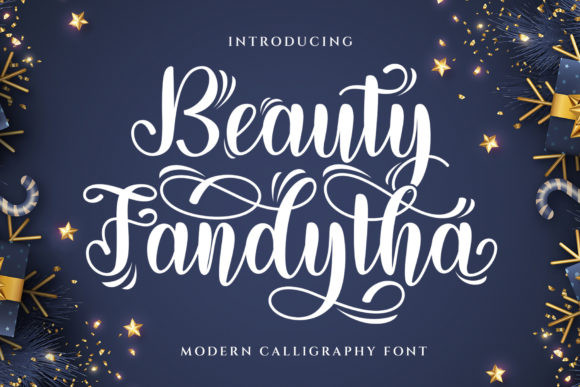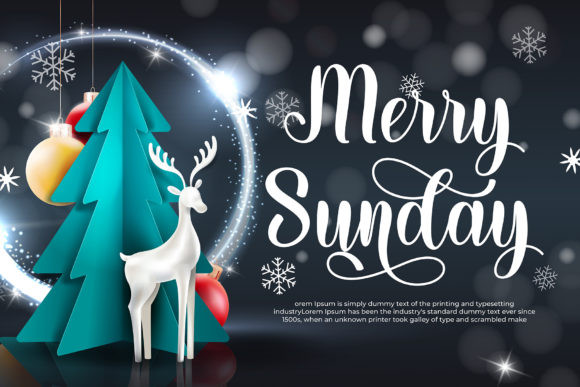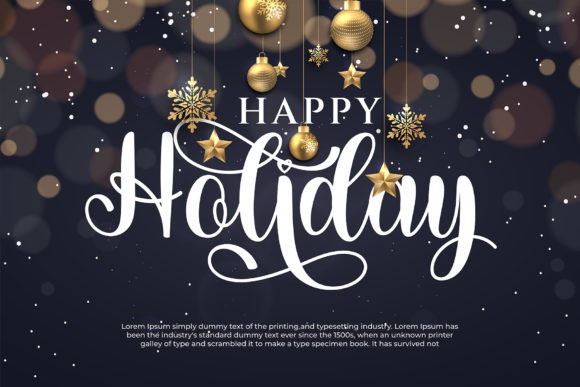
Beauty Fandytha Font
Beauty Fandytha is a romantic and stylized display font with beautiful scripted elements. This font can be used for various designs, including for invitations, product packaging, quotes, product designs, labels, photography, watermarks, t-shirts, logos, and branding. This font is PUA encoded which means you can access the available glyphs and swashes with ease!